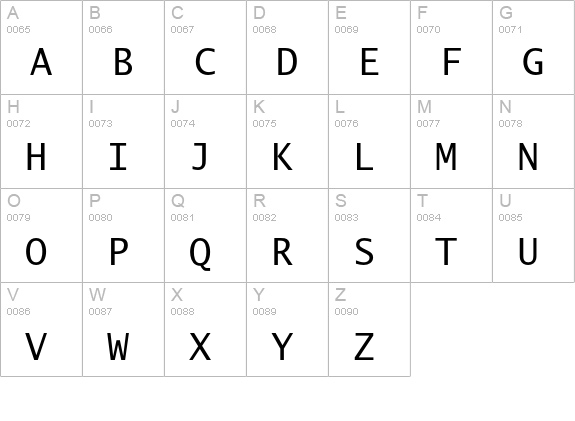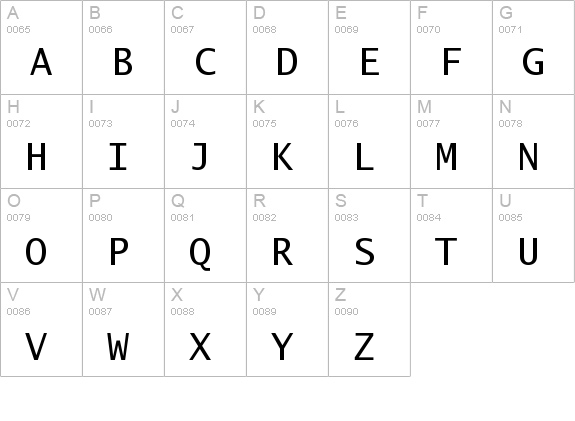
LucidaMonoEF-Roman Font Details
LucidaMonoEF-Roman is a versatile and elegant font that exudes a sense of sophistication and modernity. Its clean lines and balanced proportions make it perfect for a wide range of design projects, from professional documents to creative works. The clarity and readability of LucidaMonoEF-Roman ensure that your message is conveyed effectively and efficiently. This font is freely available to download at FontsMarket.com, allowing you to easily access and use it in your projects without any cost. Enhance your designs with the timeless appeal of LucidaMonoEF-Roman today.